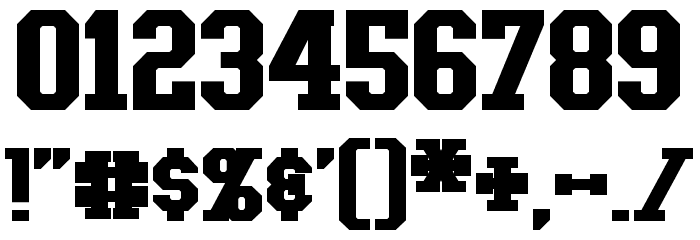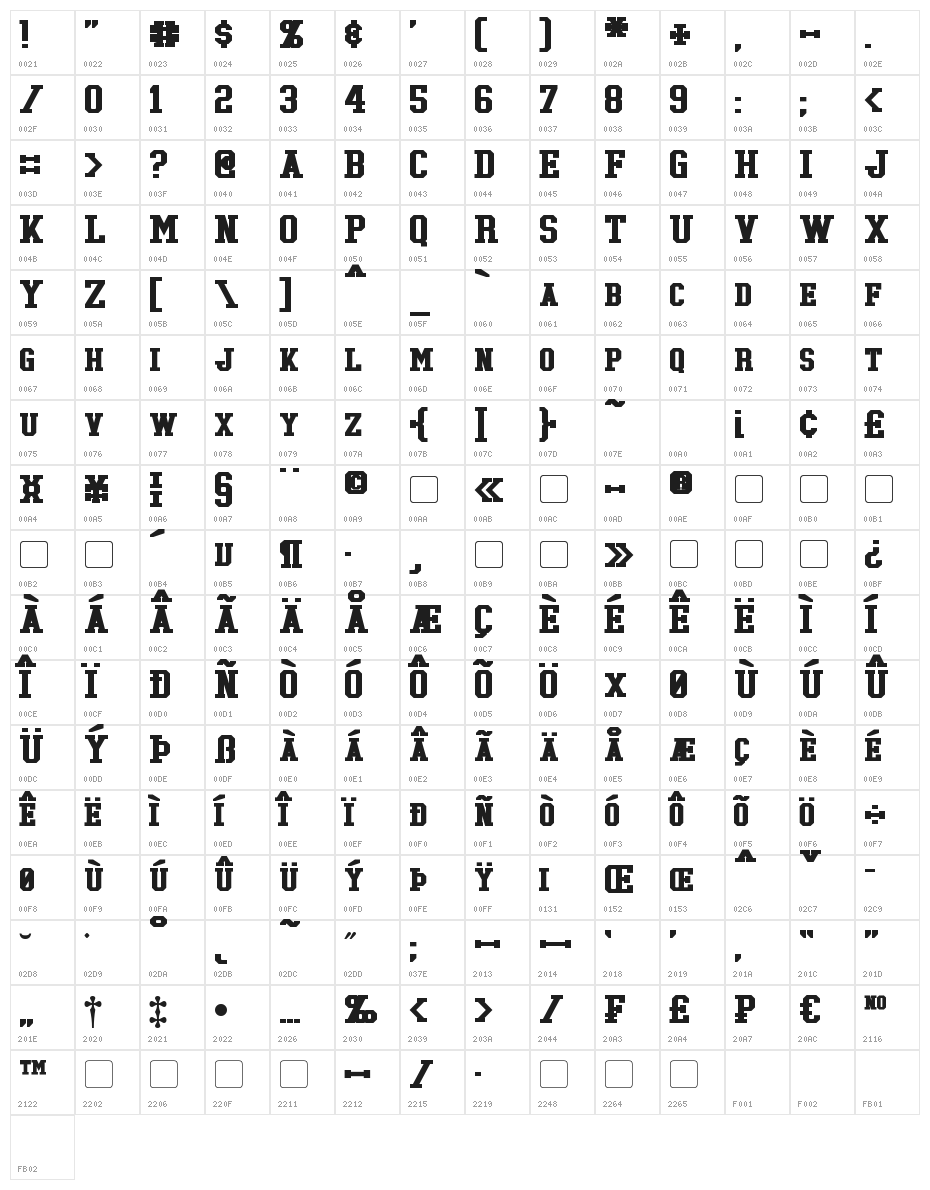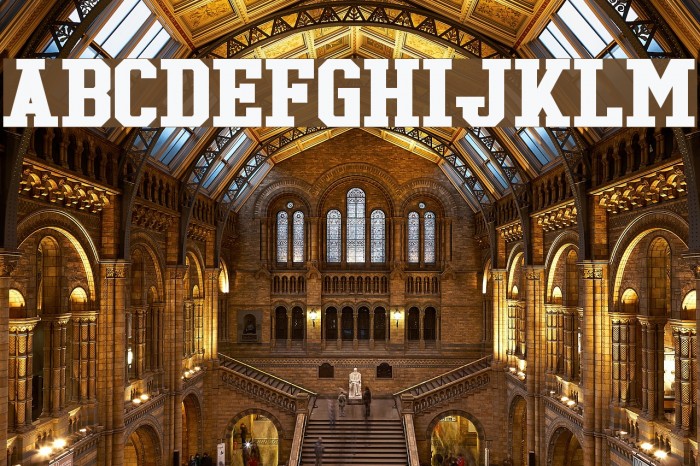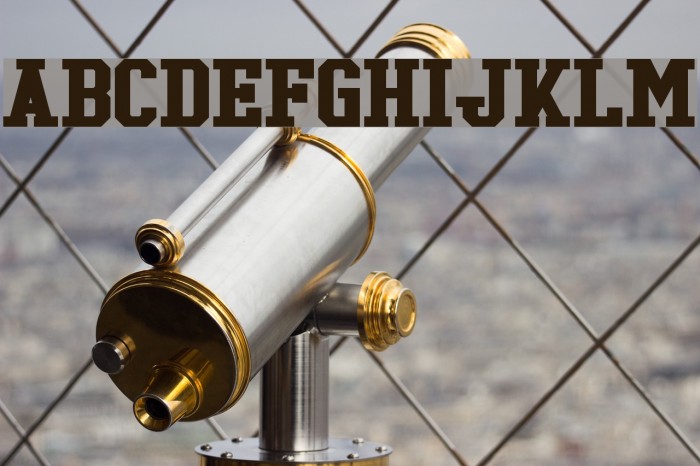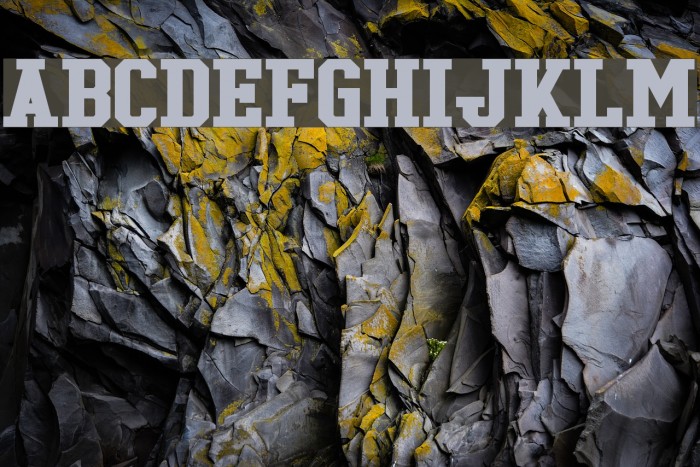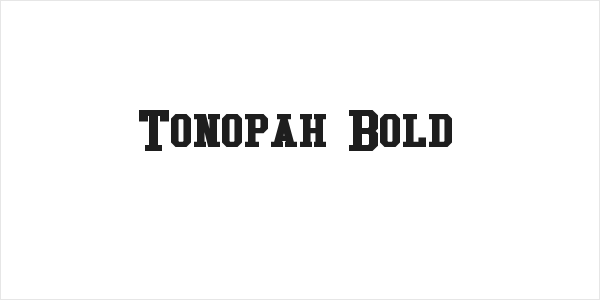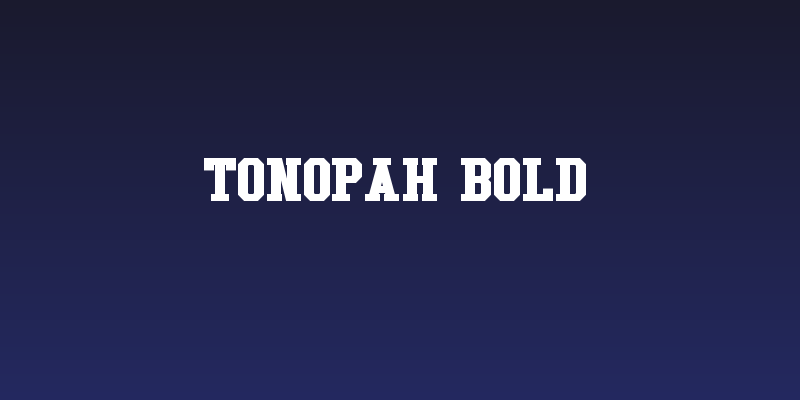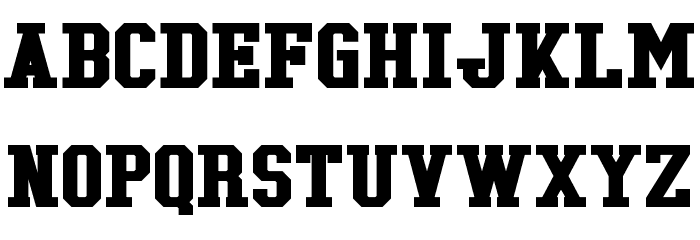
Tonopah Bold Font
Tonopah Bold Description
This bold, slab serif font features strong, geometric shapes with thick, block-like serifs. The characters are uniformly wide, giving a sense of stability and strength. The uppercase letters are particularly striking, with a commanding presence that makes them ideal for headlines and attention-grabbing text. The numerals and special characters maintain the same boldness, ensuring consistency across all uses. The font's design is reminiscent of vintage Western typography, yet it retains a modern edge that makes it versatile for various applications.
| Proposed Projects | Ideal for posters, branding, logos, and any project requiring a bold, impactful typeface. |